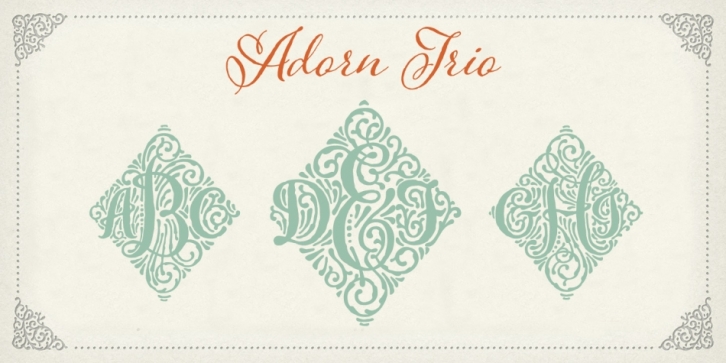
Adorn Trio is a monograms font published by Laura Worthington.
Adorn Trio is one of twenty fonts available in the Adorn family of seven display fonts, four script designs, monograms, ornaments, illustrations, banners, frames, and catchwords.
While each font in the carefully orchestrated Adorn collection can stand alone, the particular combination of contrasting scripts, display fonts, romans, and the multitude of stylized fonts in Adorn’s extraordinary toolkit makes each designer’s creation one of a kind. Buy the entire collection, 20 fonts for $99.
Adorn Trio is a monogram font, dense and rich with detail, the center letter carrying a hint of art nouveau. Simply type in the lowercase letters and your monogram is finished! These monograms were carefully wrought: each combination of letters is a revelation of complex crafting, with no collisions or overlaps. Despite their intricacy and detail, these are not your grandmother’s monograms. They are modern and bursting with personality. Worthington sketched them in pencil, then used a fountain pen for contrast and detail before digitization. Graphic designers will have their own uses for these; DIYers will see a takeoff point for jewelry, cards, invitations, rubber stamps—an endless source for personalizing and elevating the everyday, the special gathering, or a handmade creation.